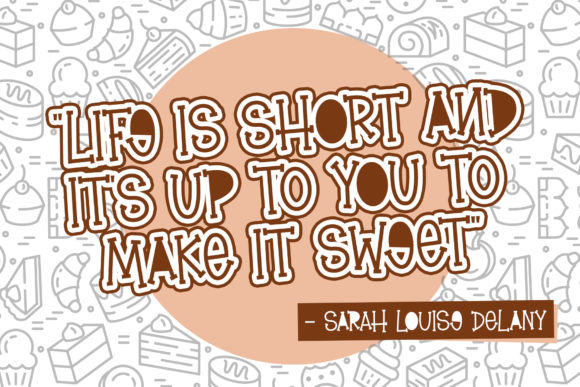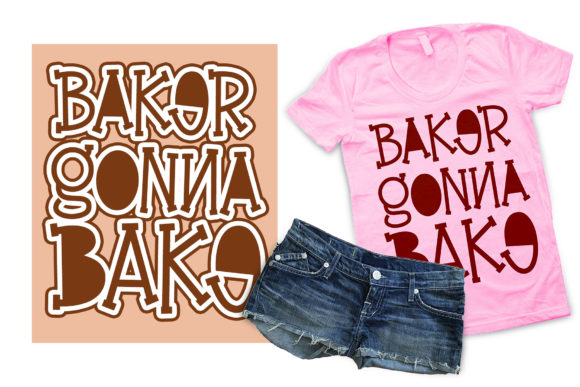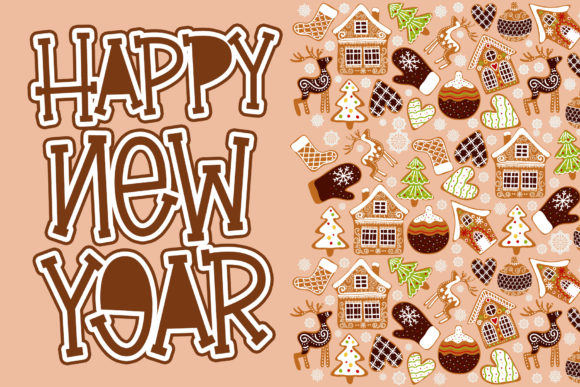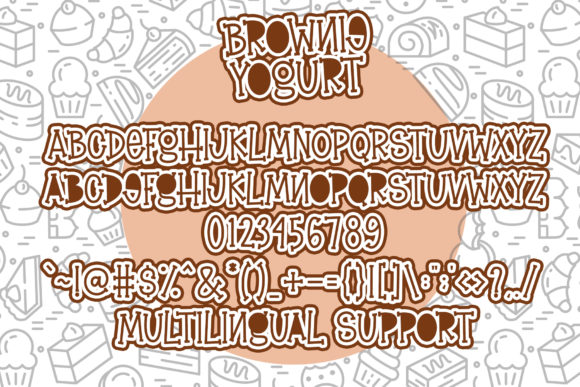
Get Ready to Indulge in the Sweetness of Brownie Yogurt Font
Do you ever find yourself lost in a sea of blank paper, searching for the perfect font to bring your creative vision to life? For many of us, that moment of inspiration is just around the corner – a spark that sets off a chain reaction of ideas and imagination.
Enter Brownie Yogurt Font, the charming serif font that’s about to become your new best friend. This delightful font is designed for everyday use, perfect for crafting, scrapbooking, printing, and so much more. Whether you’re a seasoned designer or just starting out, Brownie Yogurt Font is sure to add a touch of whimsy and personality to your work.
Brownie Yogurt Font Key Features
- Font Family: Brownie Yogurt Font is a unique, modern sans-serif font designed to evoke a sense of warmth and comfort.
- Unique Characteristics: The font features a unique blend of rounded and geometric shapes, creating a friendly and approachable feel that is perfect for food, lifestyle, and wellness brands.
Brownie Yogurt Font Review
Overall, I found the Brownie Yogurt Font to be a unique and interesting choice for a project. ✨ Its eclectic mix of script and sans-serif elements can add a fun and playful touch to a design. ✨
- ✨ The font has a wide range of characters and symbols, making it suitable for a variety of applications.
- ✨ The font is highly customizable, allowing users to adjust the style and appearance to suit their needs.
- ✨ The font is available in a range of weights and styles, making it easy to find the right fit for your design.
However, I did encounter some limitations with the Brownie Yogurt Font. ⚠️ The font’s irregularities can sometimes make it difficult to read, particularly in large blocks of text. ⚠️ Additionally, the font may not be suitable for formal or professional applications due to its casual and playful nature. ⚠️
Overall, I would recommend the Brownie Yogurt Font for projects that require a fun and creative touch. However, it may not be the best choice for projects that require a more formal or professional tone.
The Brownie Yogurt Font is suitable for a variety of design applications, including:
– Social media posts and graphics
– Presentations and reports
– Digital signage and advertising